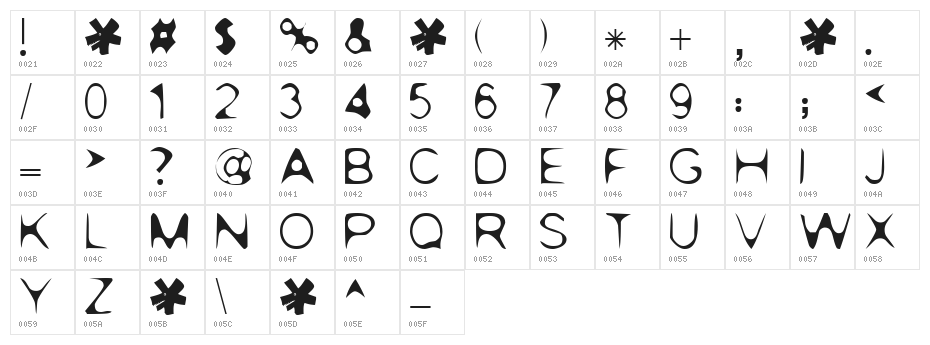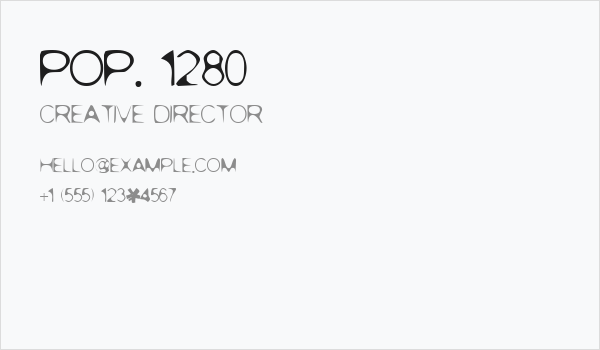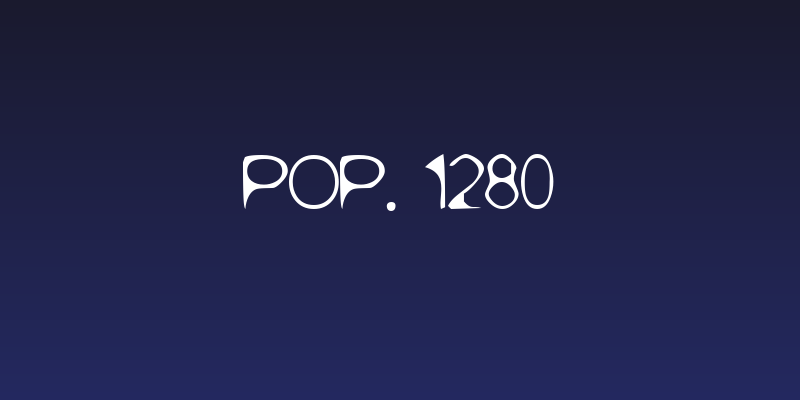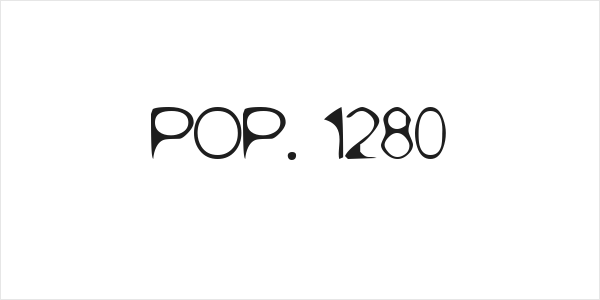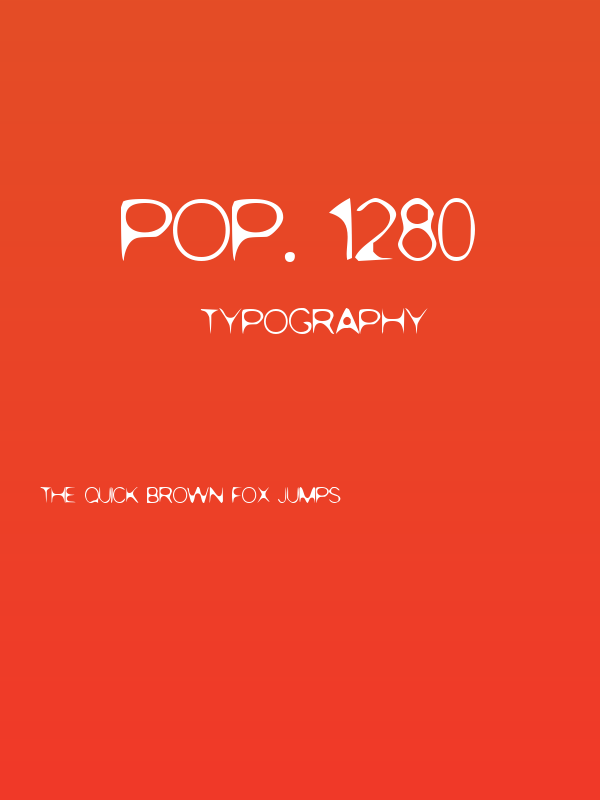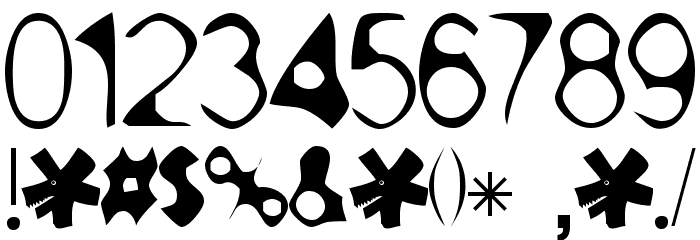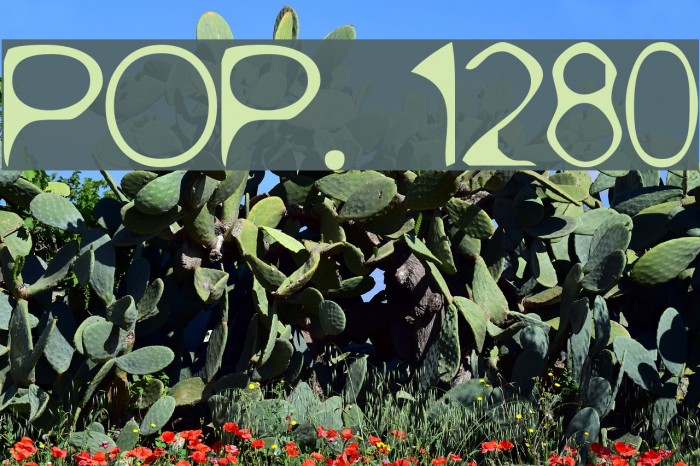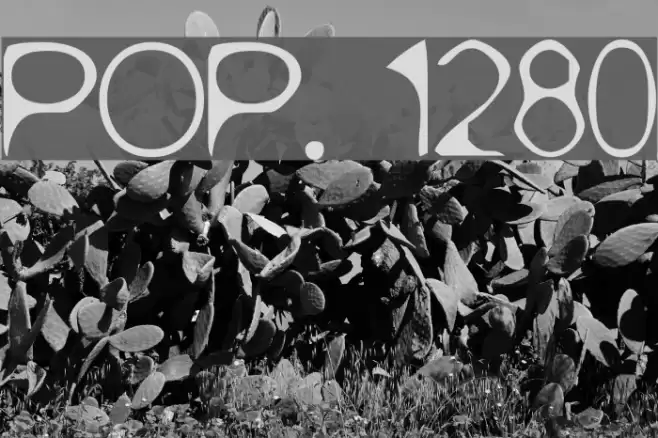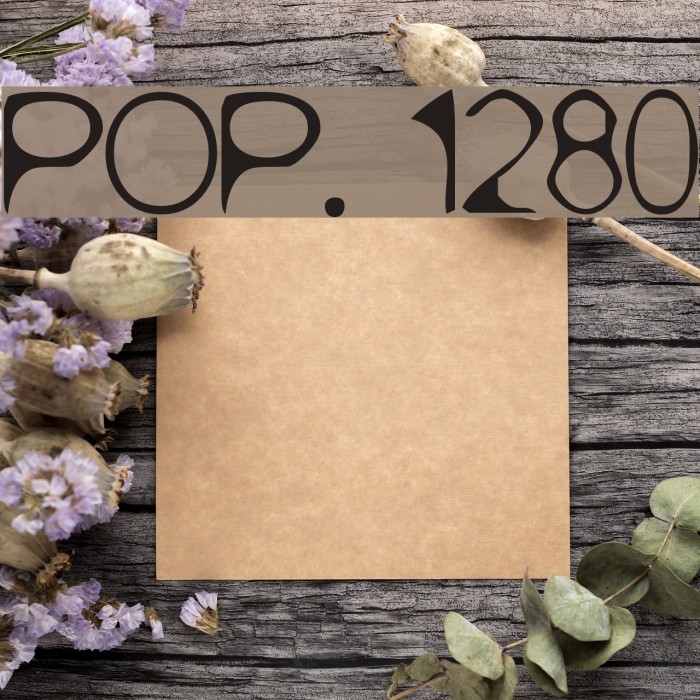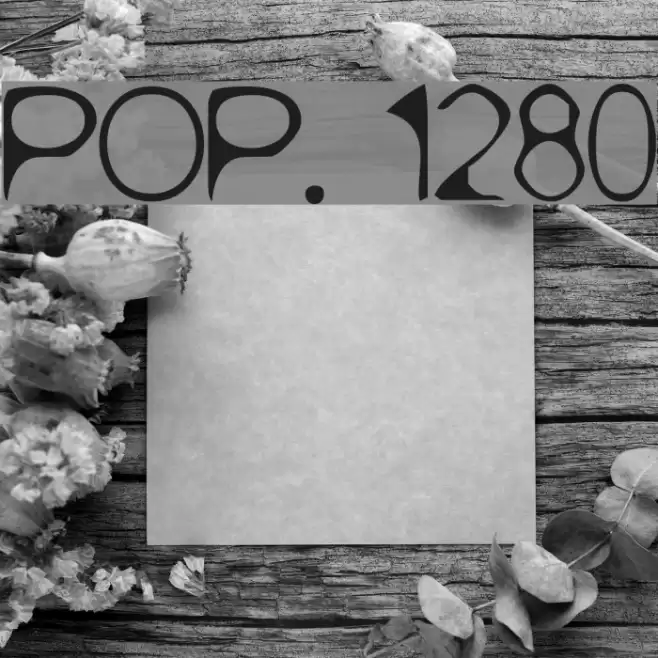
POP. 1280 Font
POP. 1280 Description
This font features a highly stylized and artistic design, characterized by its unique, sharp, and angular forms. The letters exhibit a bold and dramatic presence, with exaggerated curves and pointed edges that create a dynamic and eye-catching appearance. The numbers and special characters follow the same aesthetic, maintaining consistency throughout the typeface. The overall look is reminiscent of retro or psychedelic styles, making it suitable for projects that require a distinctive and unconventional visual impact.
| Use Case | Logos, Posters, Album Covers |
| Proposed Projects | Ideal for album covers, posters, branding for creative industries, and any project seeking a bold, artistic flair. |